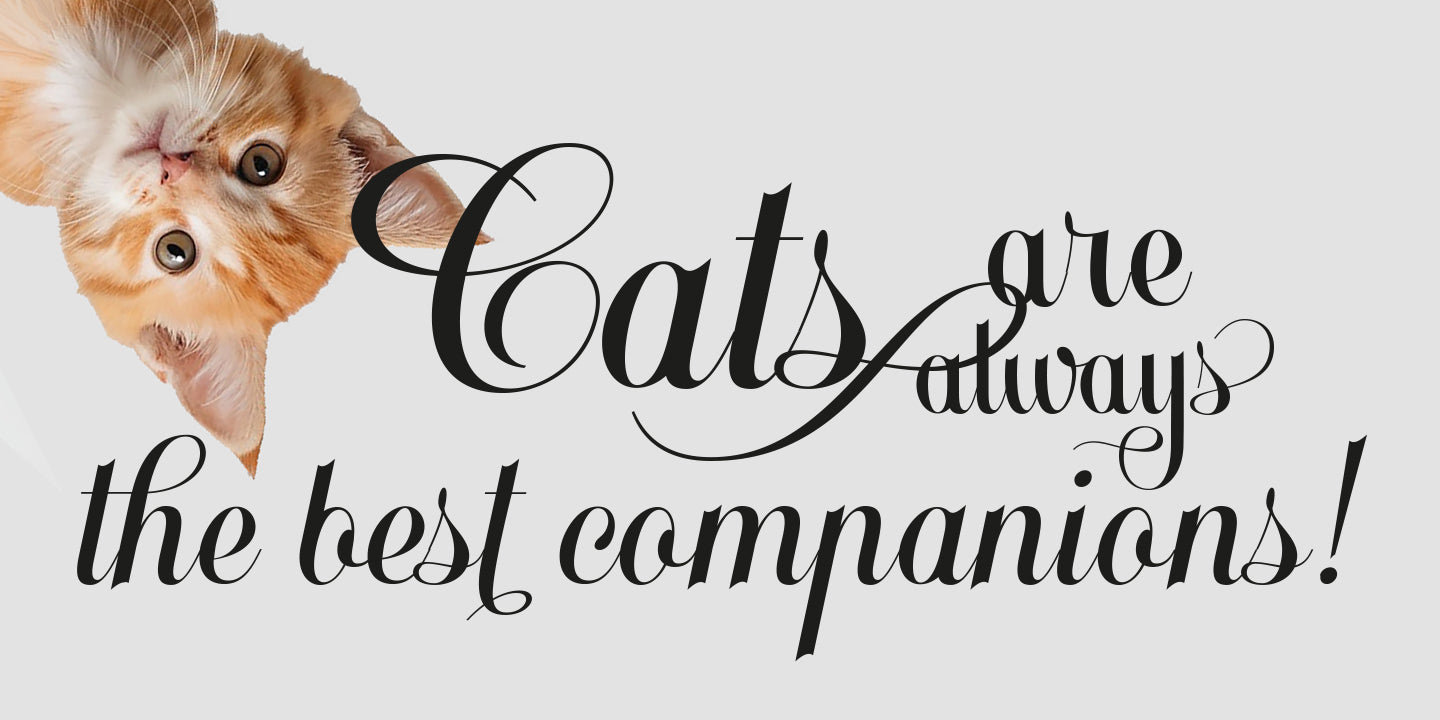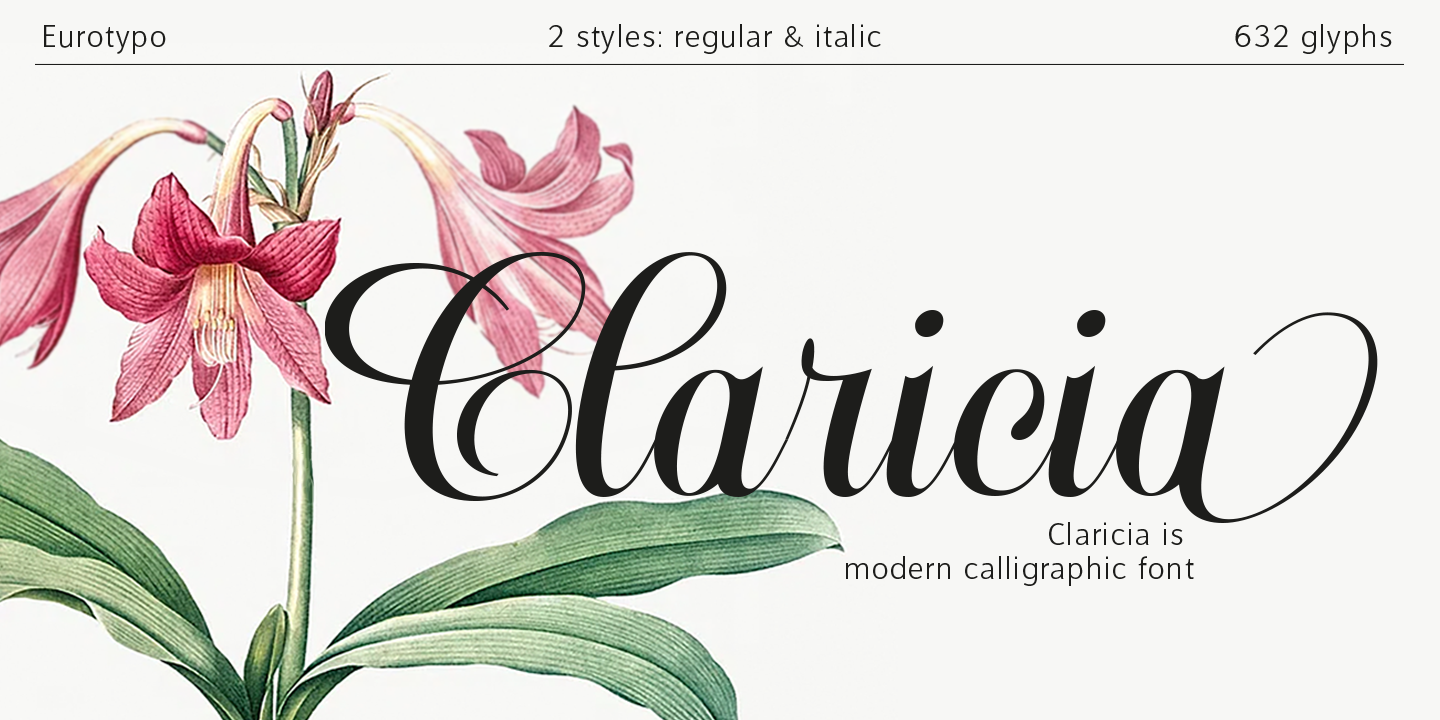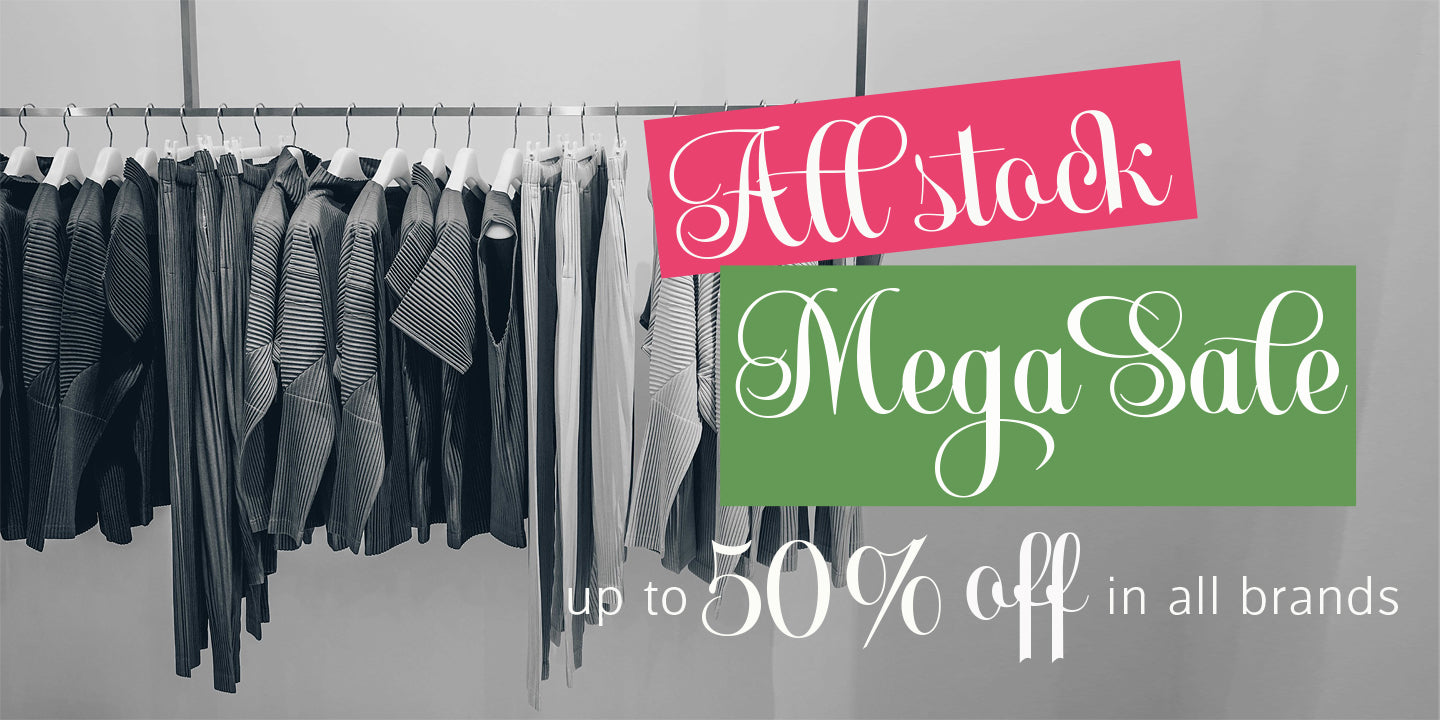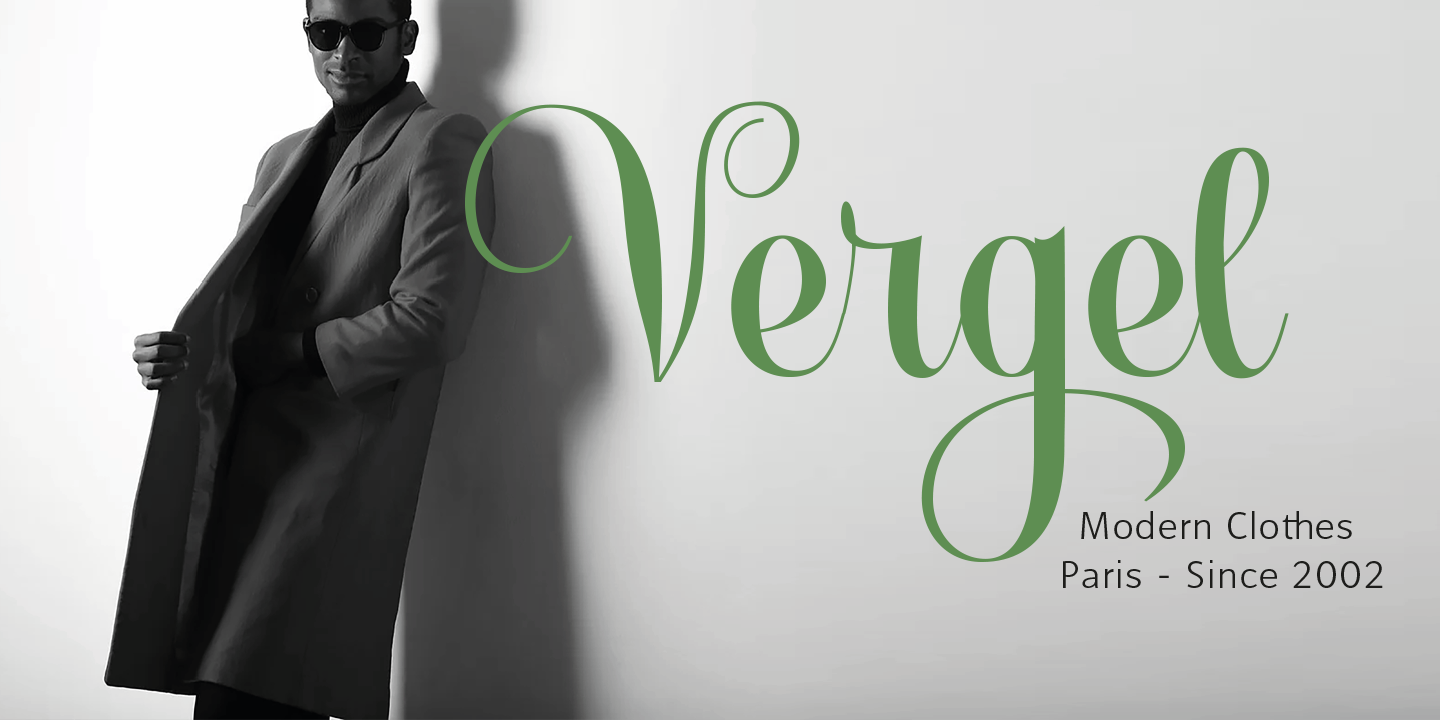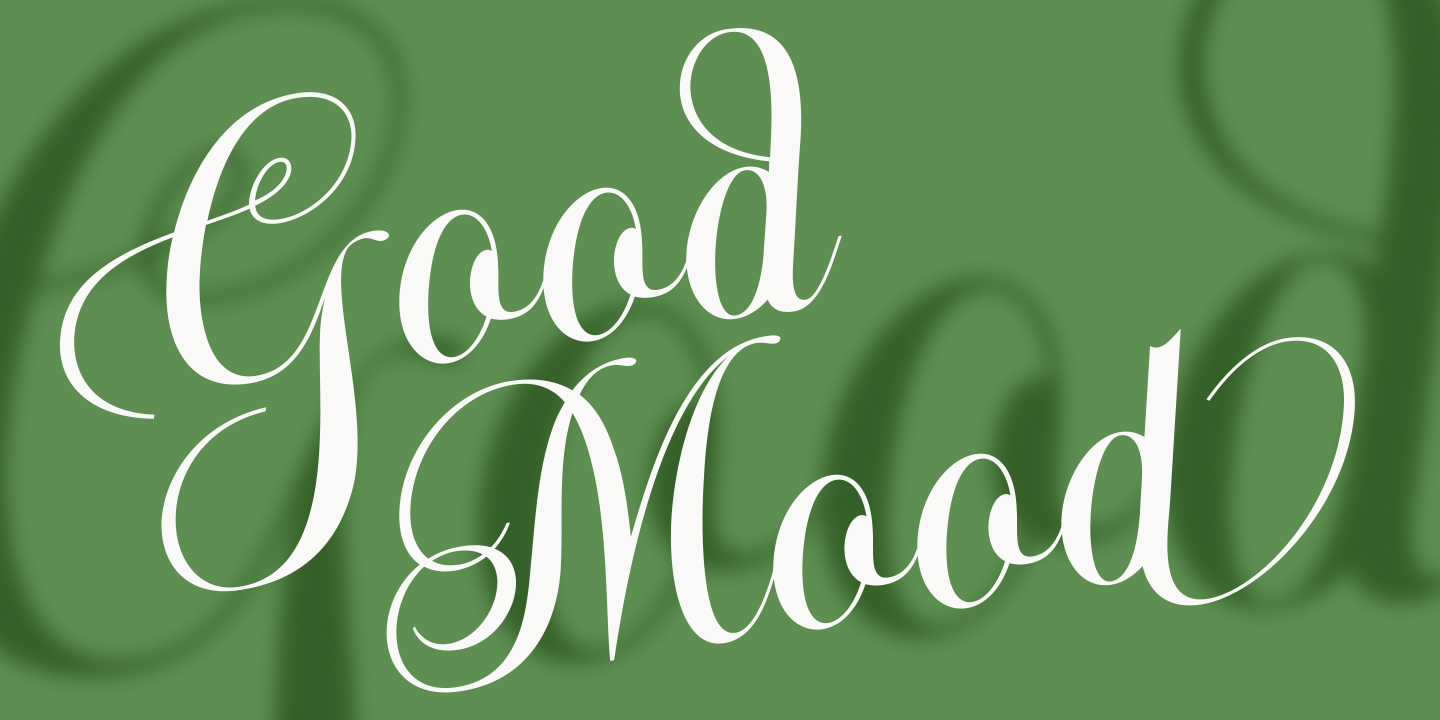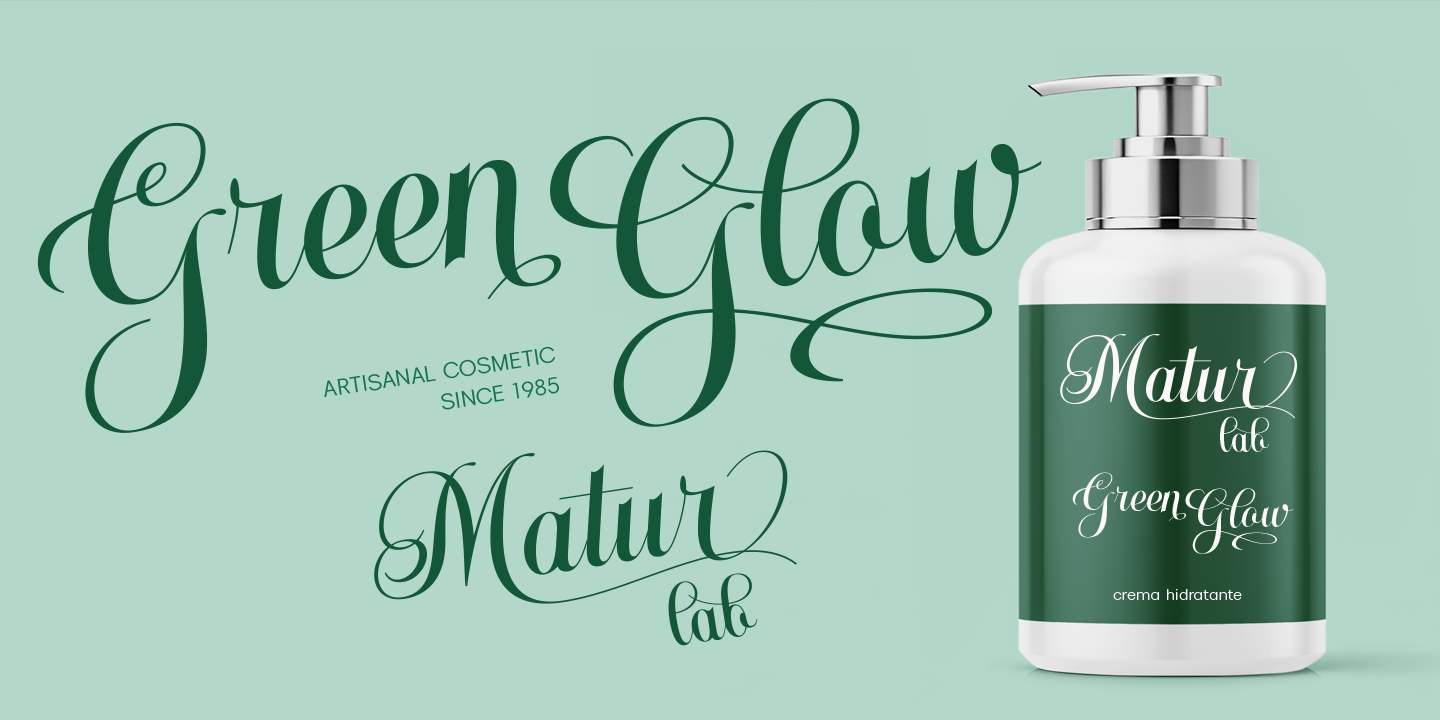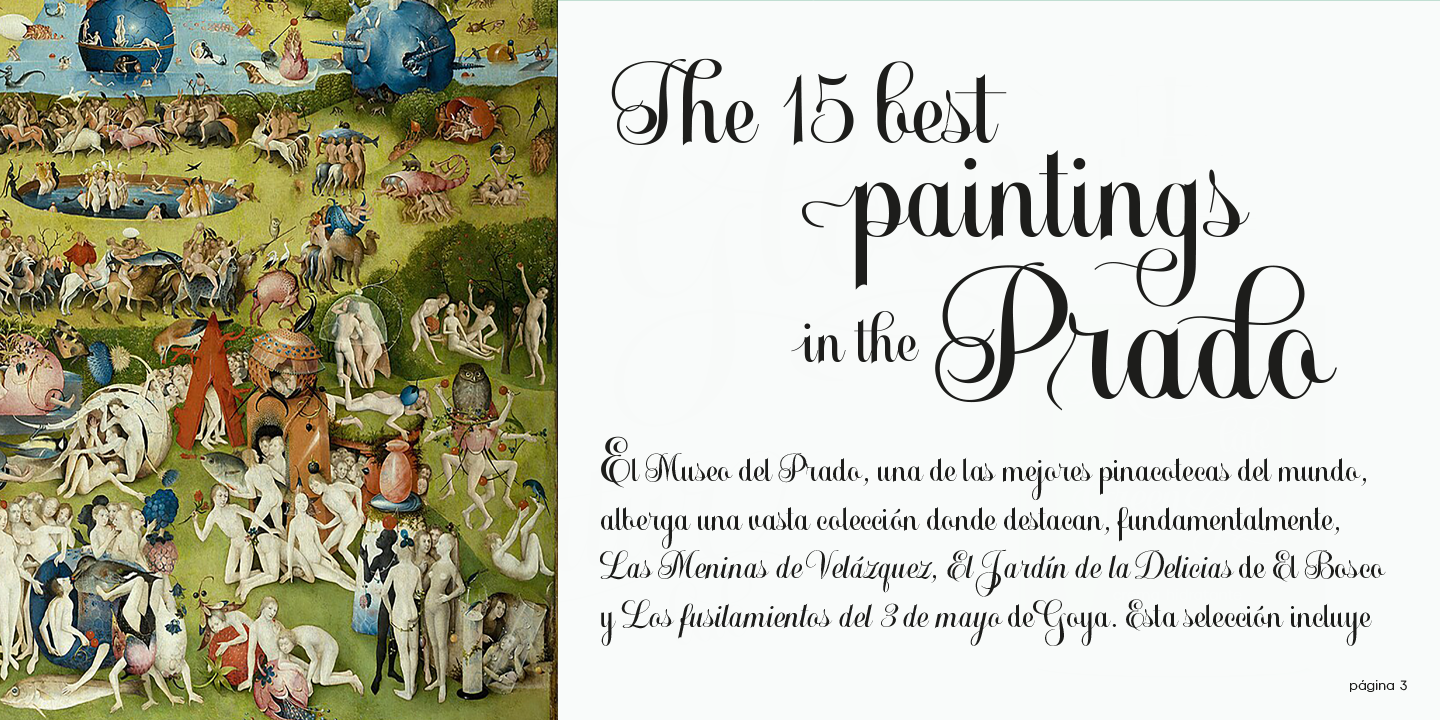
Claricia
Calligraphic Personality
Claricia is a calligraphic font that uniquely combines organic naturalness with effortless elegance. Designed to stand out, it offers a creative universe with 632 glyphs and advanced OpenType features that multiply its possibilities.
Rich OpenType Behavior
Every detail has been carefully considered: the uppercase letters have multiple variations, and the lowercase letters offer a rich variety of alternatives, allowing for fluid, dynamic, and non-repetitive compositions. It also incorporates elegant initial and final strokes that add a sophisticated finish to each word and a large number of ligatures, making your text look more natural.
Branding & Packaging
Claricia is the perfect choice for adding personality to headlines, logos, branding, and packaging, bringing a distinctive and memorable touch to any project.
Creative Freedom
Discover its full potential and let your creativity flow with Claricia.